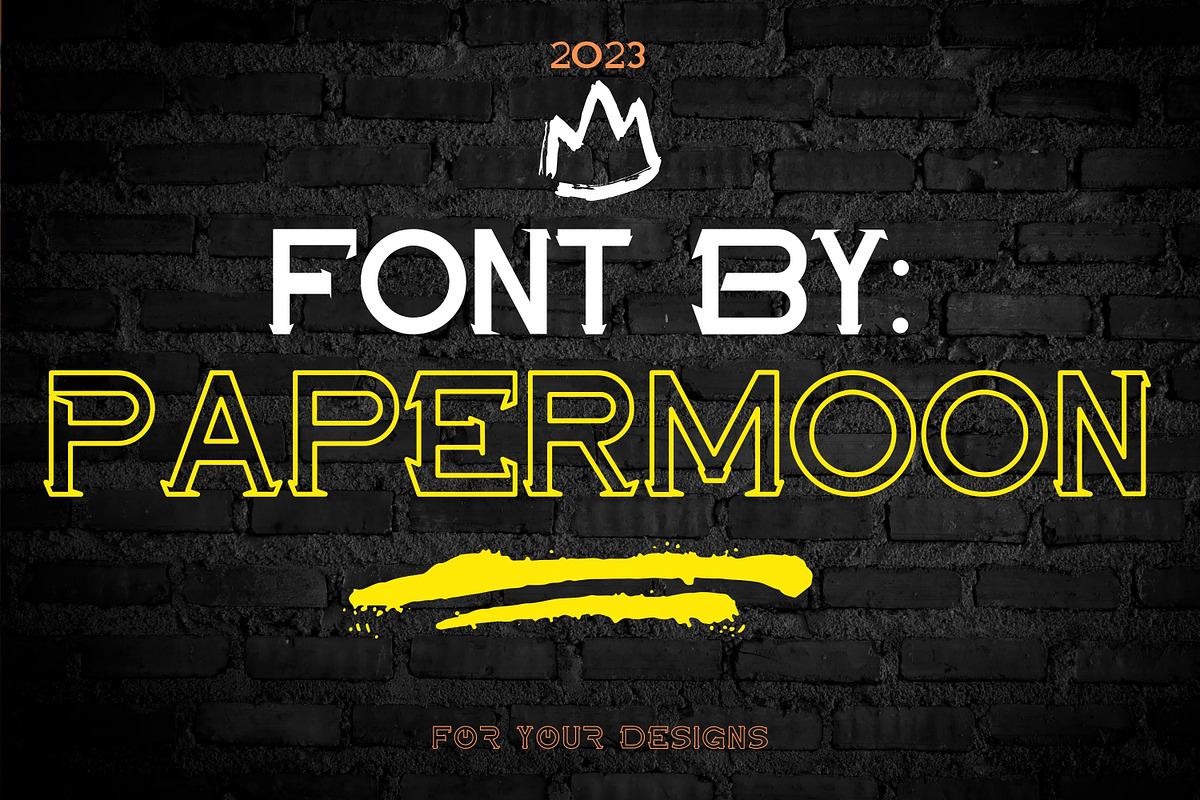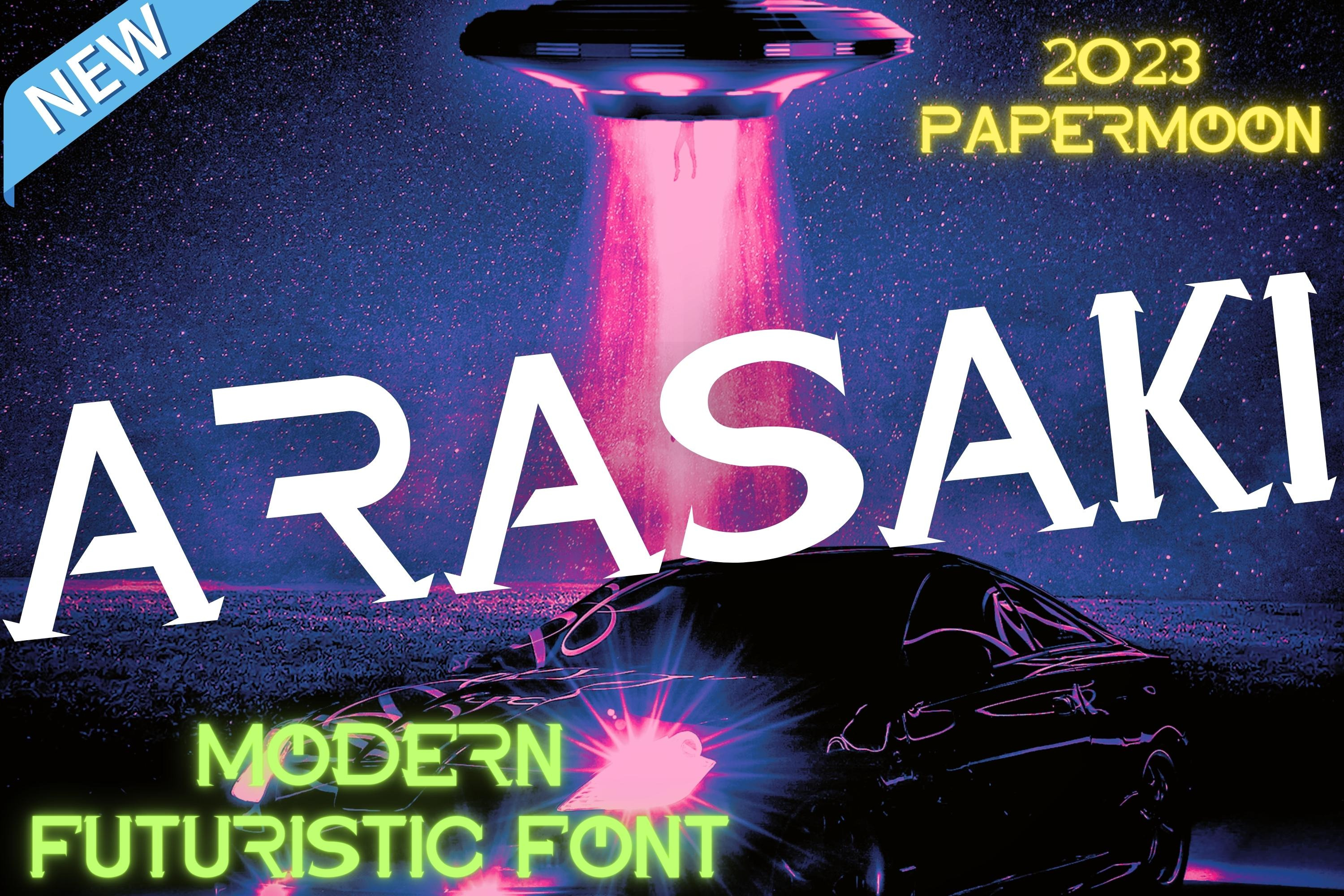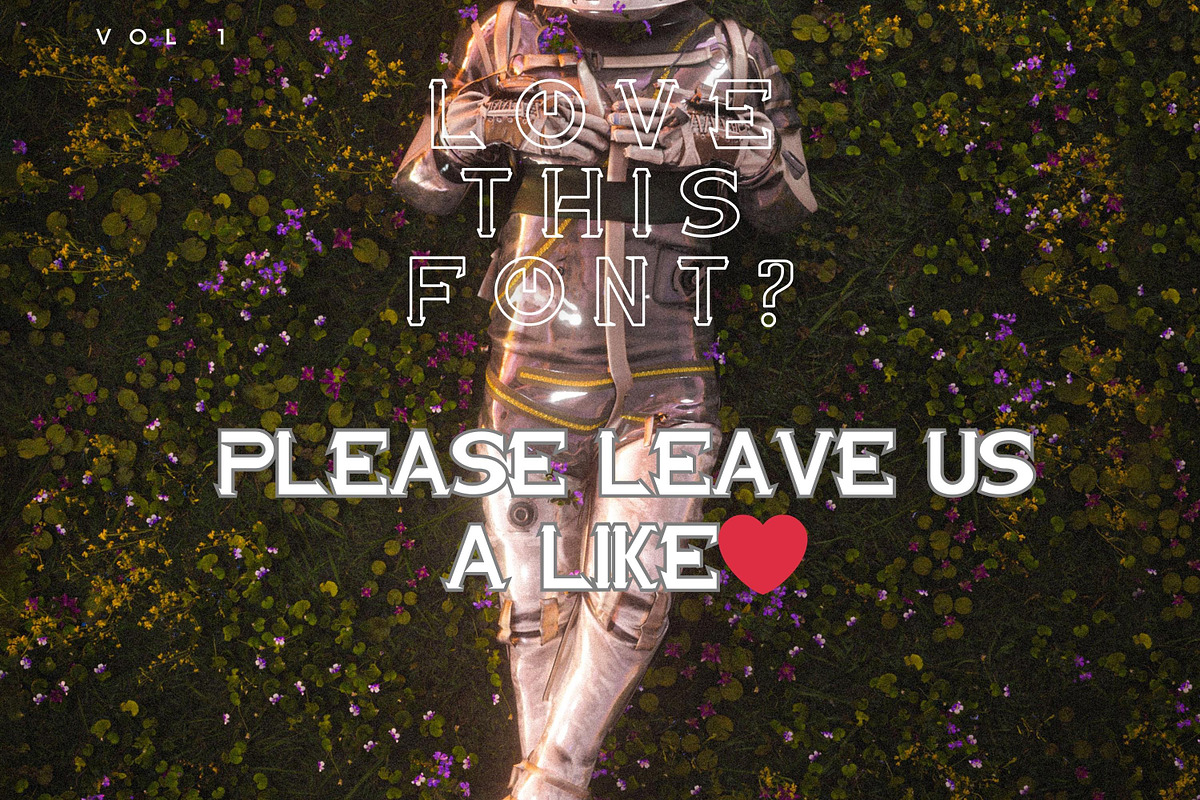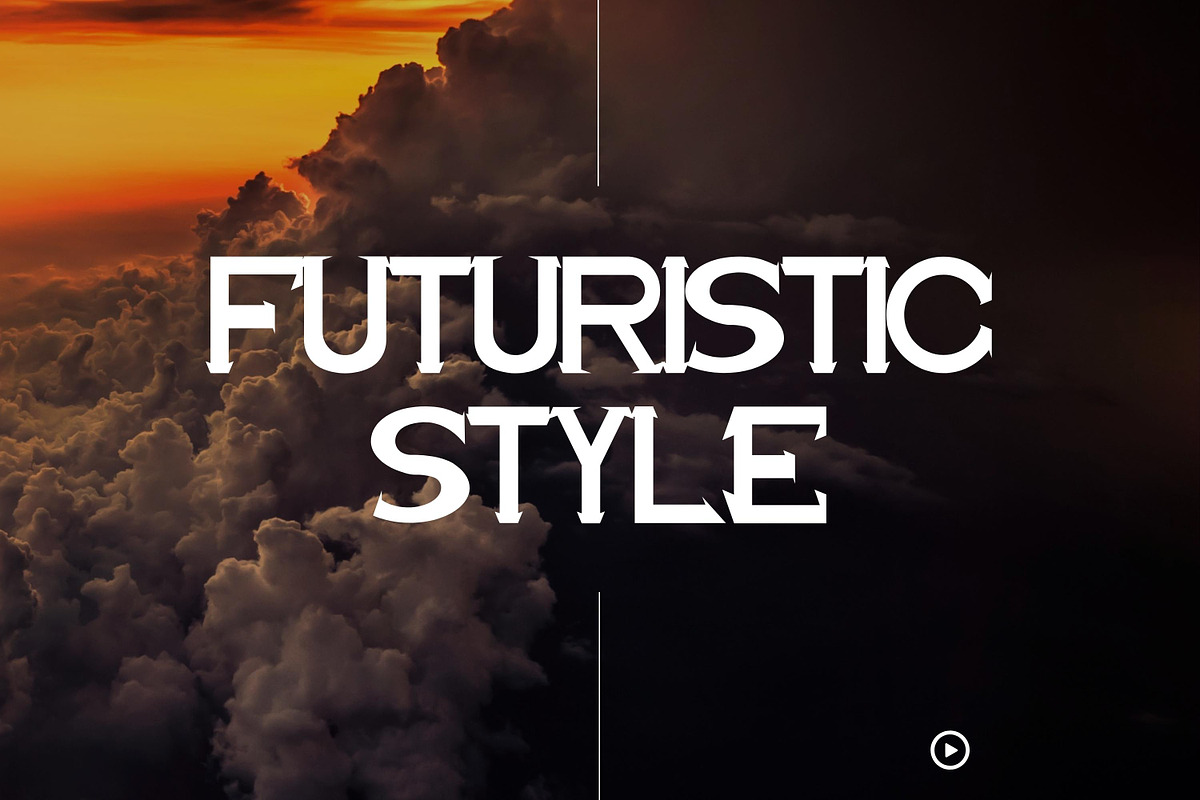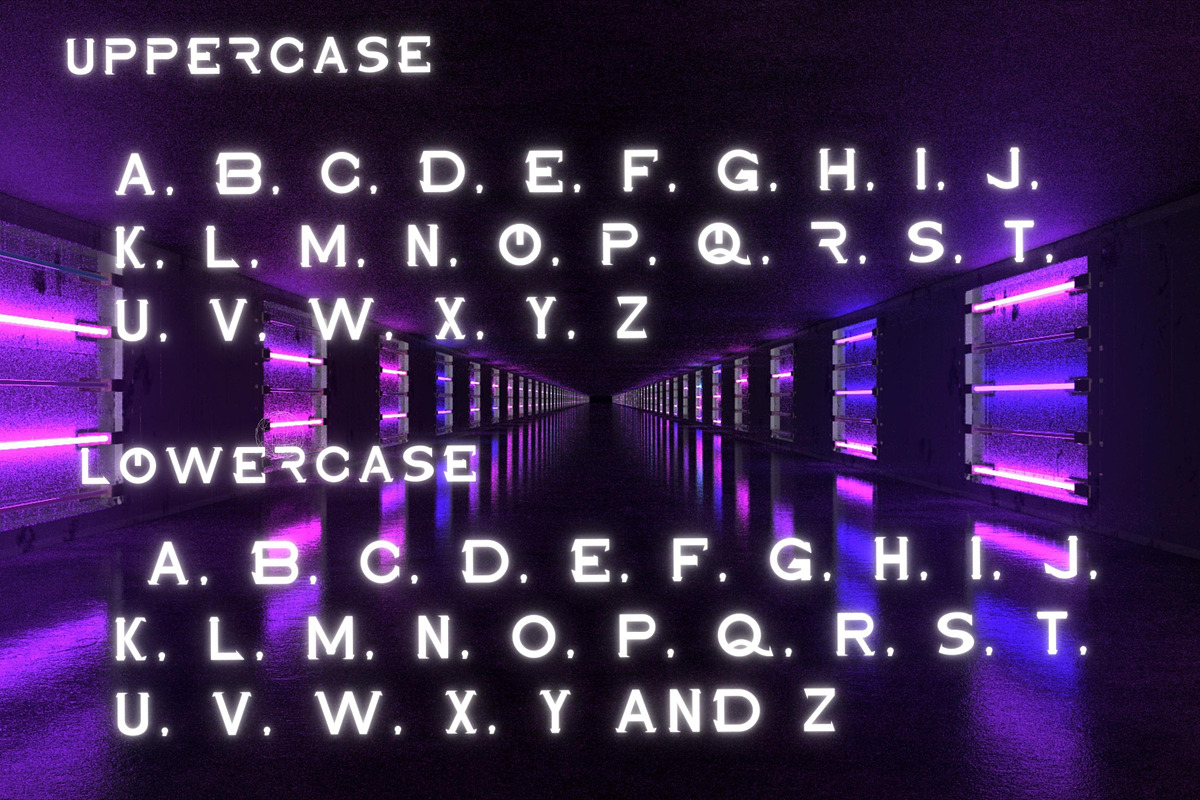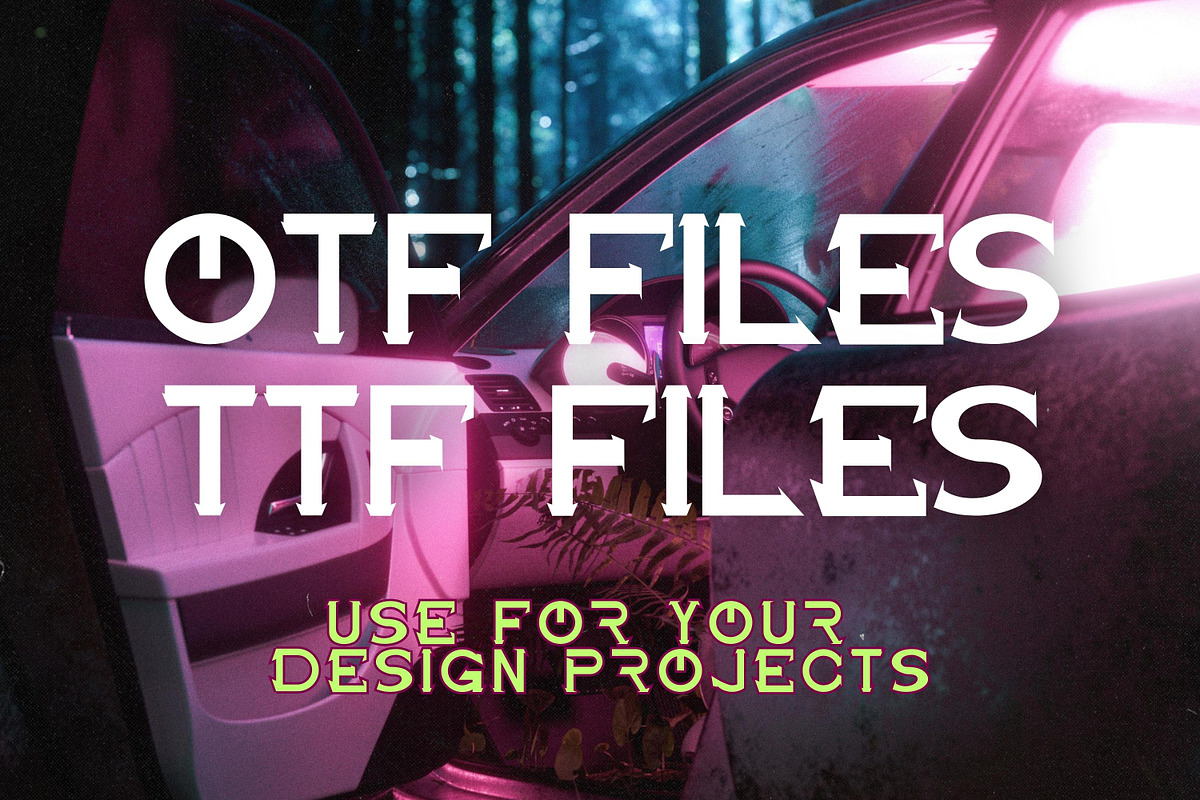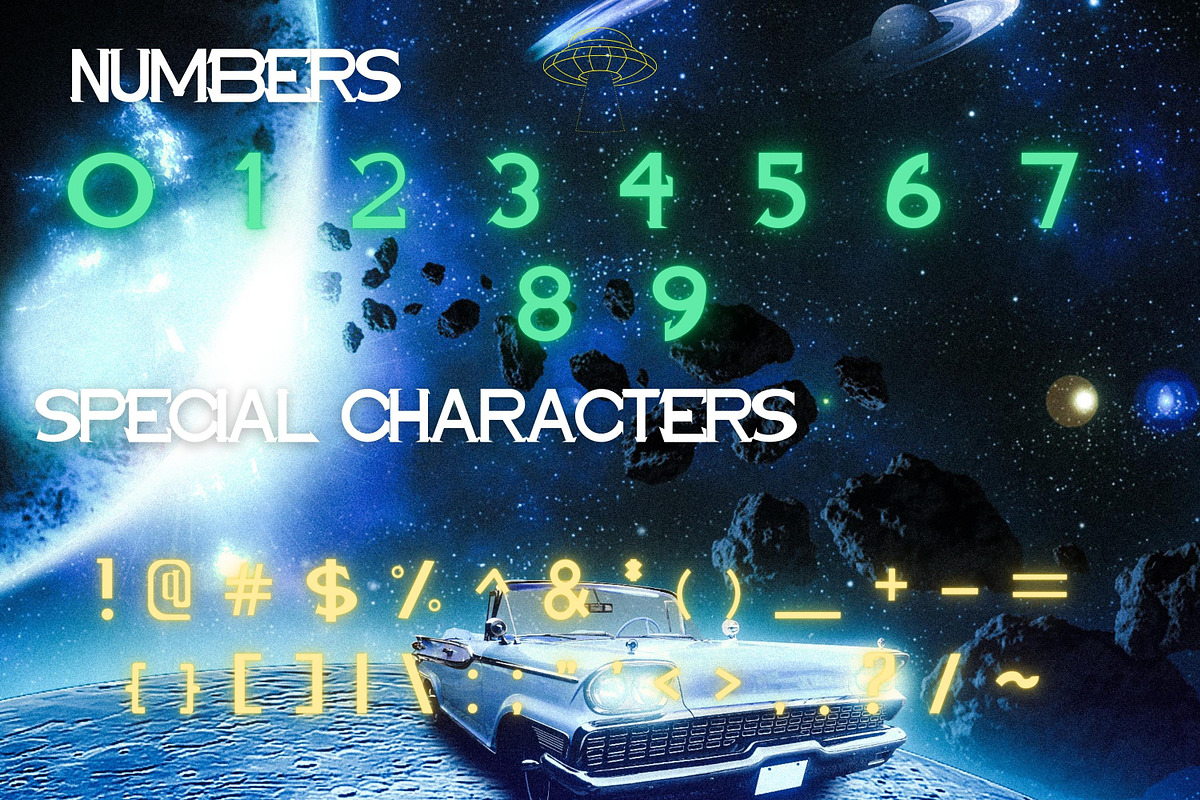
Arasaki Modern Futuristic Font
We're excited to introduce one of our freshest typefaces: Arasaki Font!
Arasaki is a contemporary font that ushers in a unique and futuristic design style. Its versatile aesthetics allow you to venture into an array of industries and design realms, from startups, technology, and real estate to finance, marketing, science, space, and beyond. With an extended license, your creative horizons are boundless, enabling you to craft compelling branding (logos, stationery, business cards, letterheads, folders, and more), promotional materials (flyers, brochures, postcards, and the like), digital marketing assets (banners, ads, covers, and more), personal invitations, magazines, websites, and countless other projects.